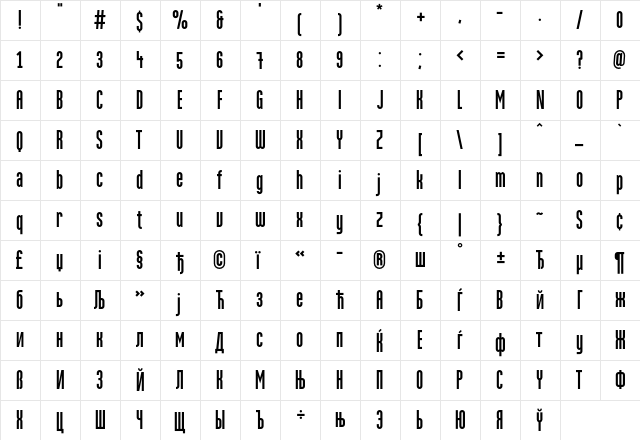
MartenCyr-Grotesque Regular
Design Context for MartenCyr-Grotesque Typeface
MartenCyr-Grotesque offers clean, dependable letterforms without strong stylistic allegiance, making it a practical choice for designers who need flexibility.
Pro Tip: Use MartenCyr-Grotesque in both headline and body roles to test its range before committing to a single application.